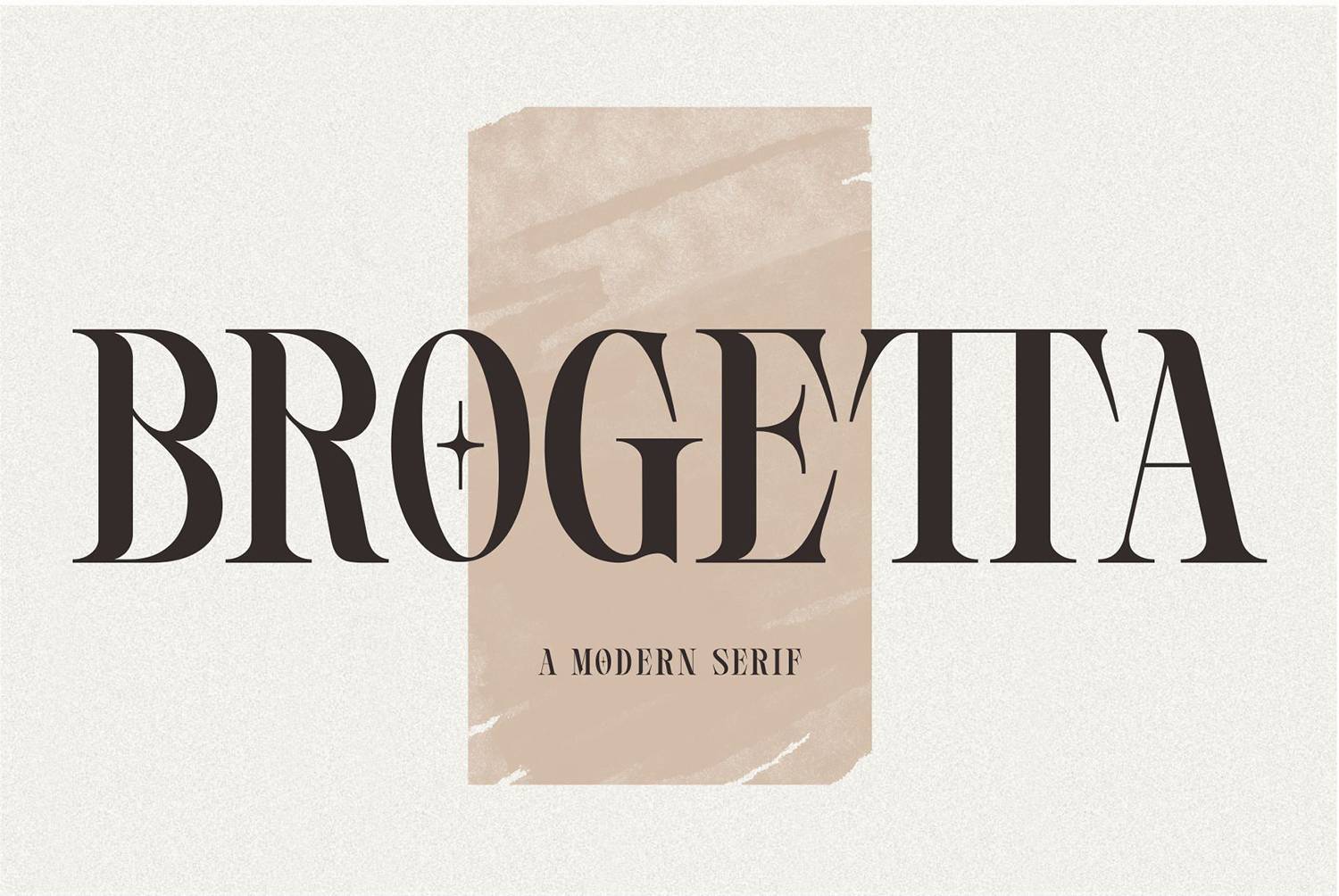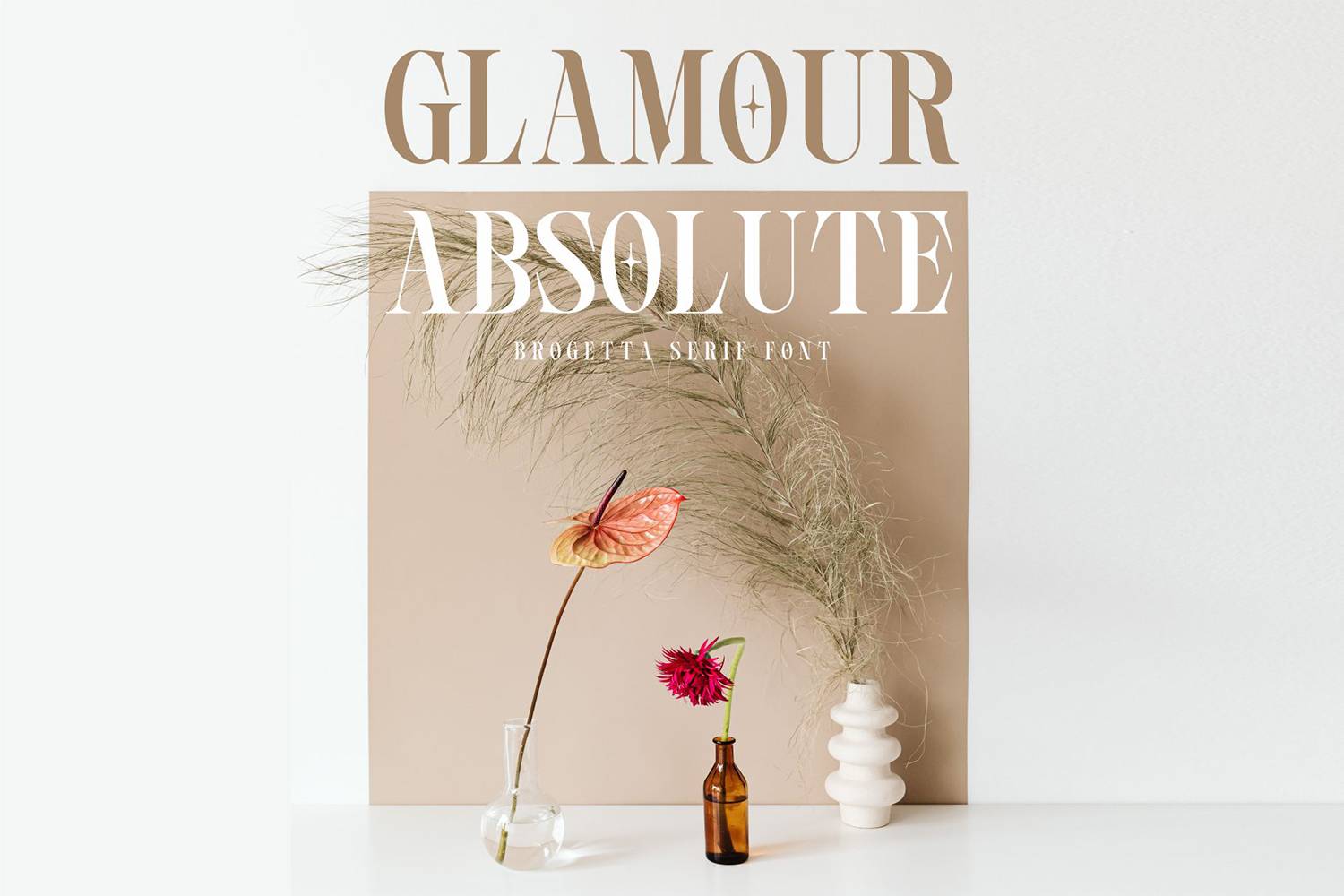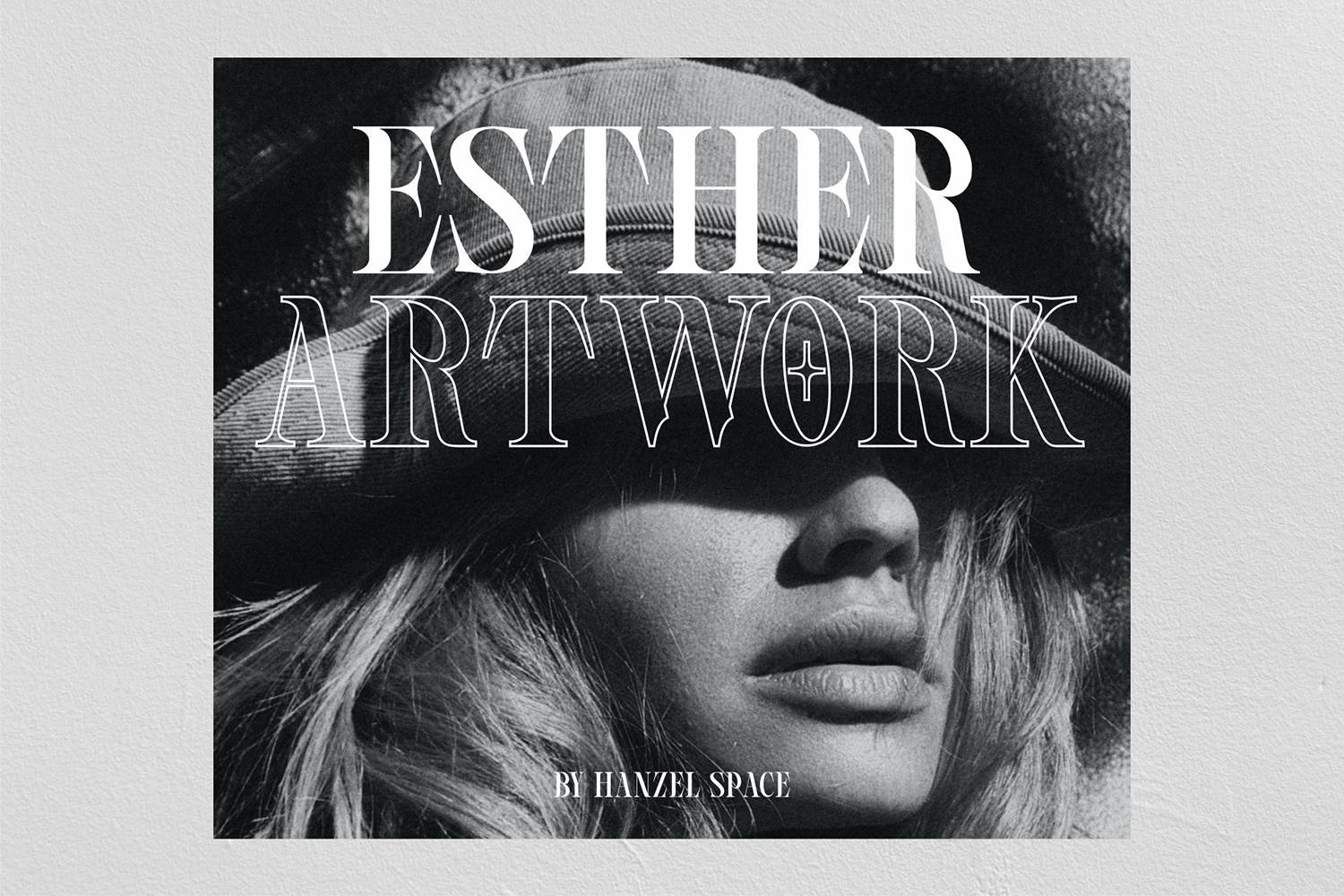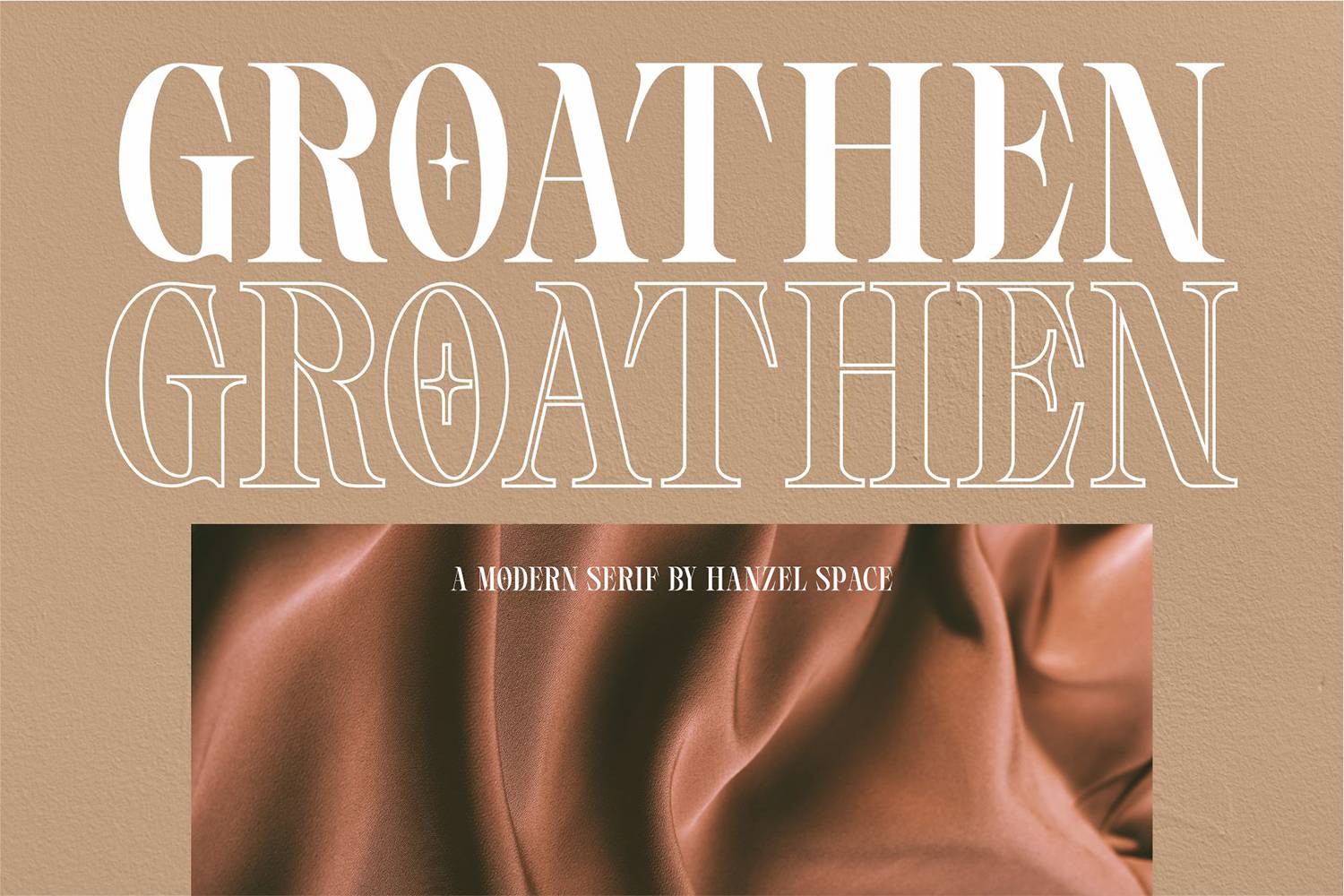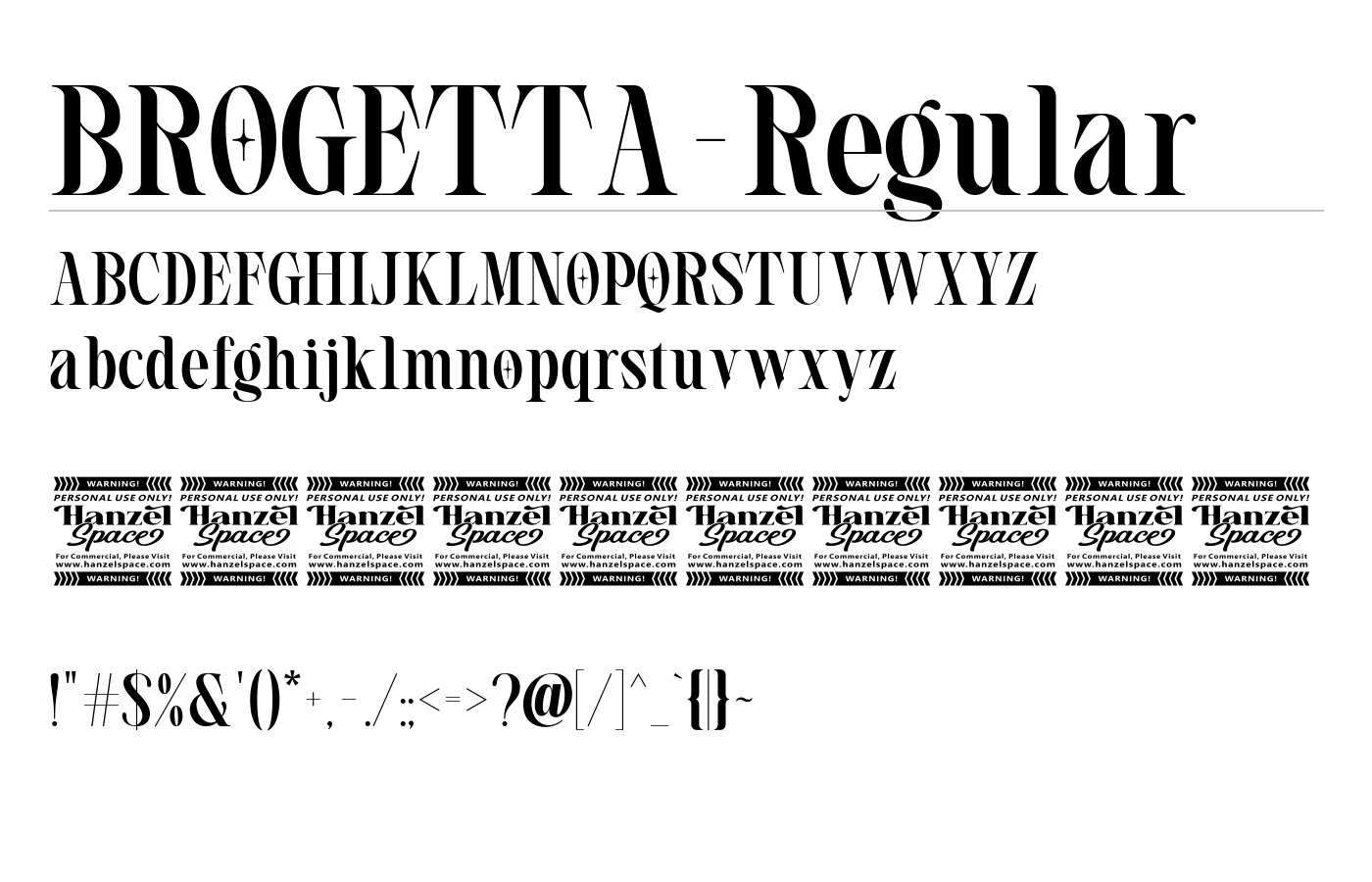
Brogetta is a distinctive modern serif font with high contrast between thick and thin strokes, featuring elegant, sharp serifs and a tall, condensed structure. Its unique letterforms, including notable details like the stylized "O" and "g," give it a sophisticated and artistic personality, ideal for luxury branding, editorial headlines, and high-end packaging where a refined and striking appearance is desired. This font brings a blend of classic elegance and contemporary flair, making it perfect for creating memorable, upscale designs.
Brogetta Font
About Brogetta Font